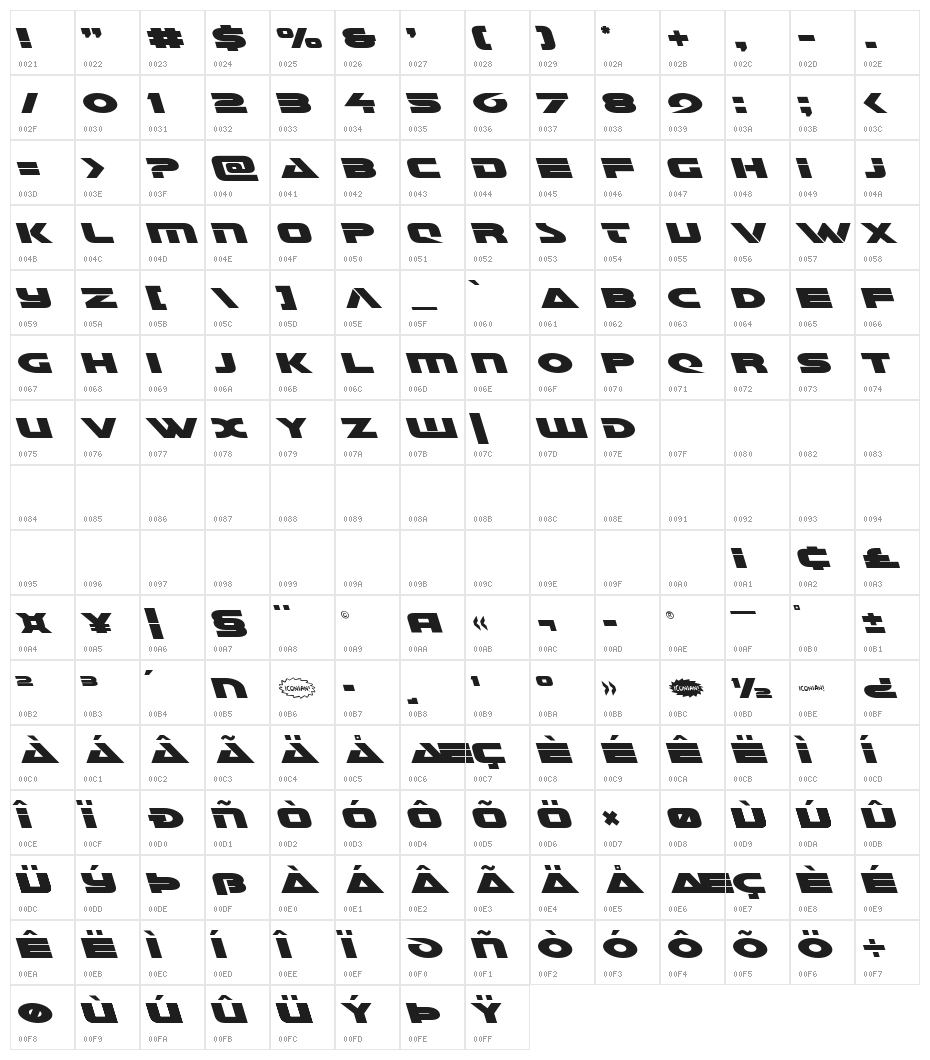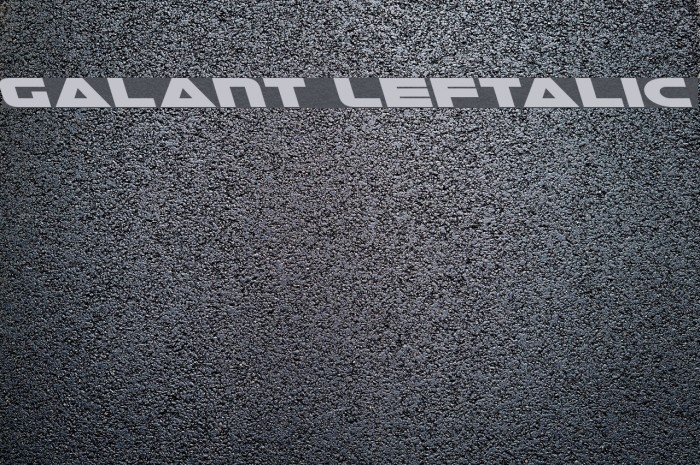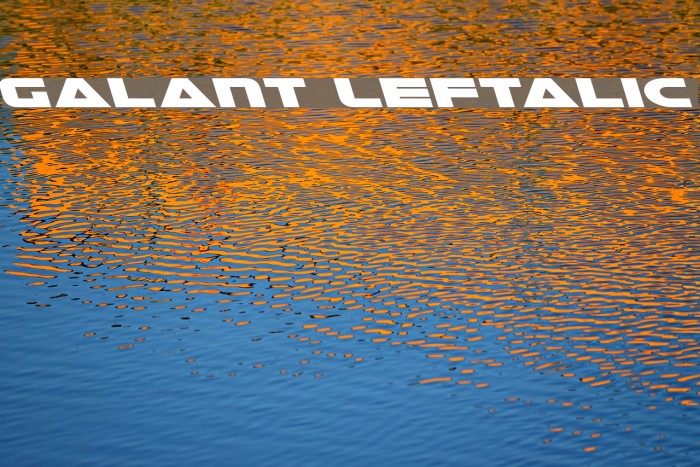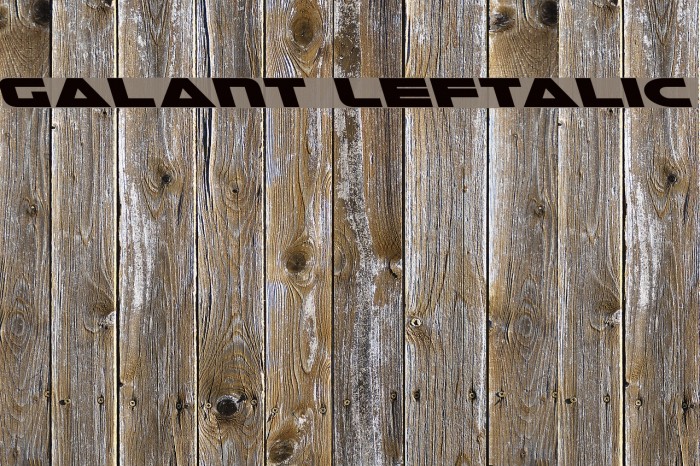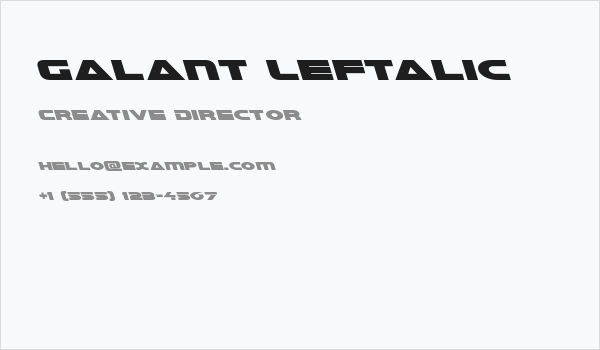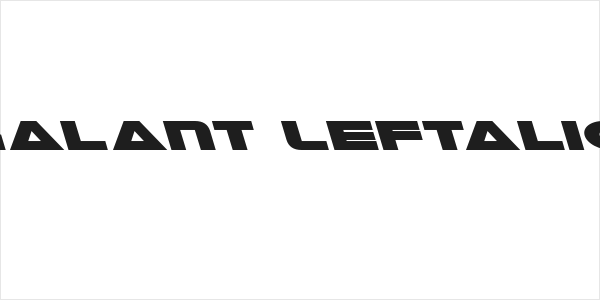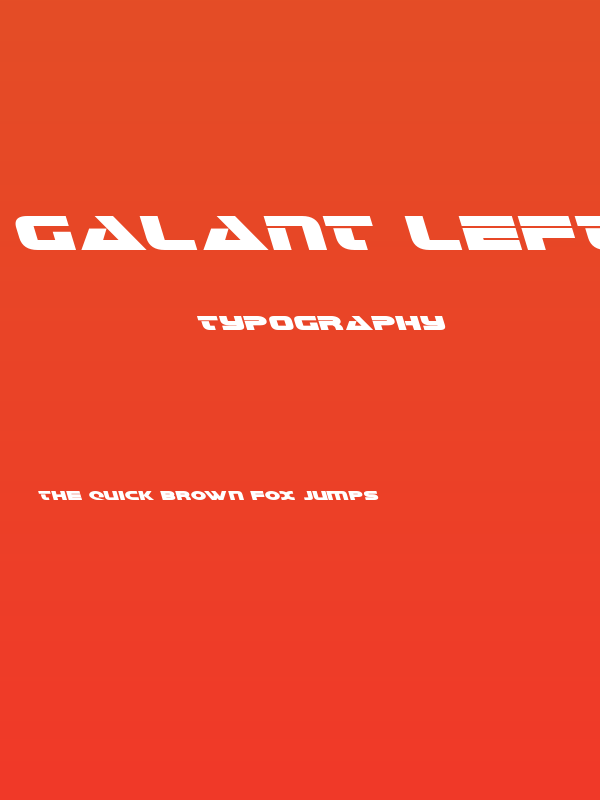
Galant Leftalic Font
Galant Leftalic Description
This font features a bold, futuristic design with a distinct slant to the left, giving it a dynamic and forward-moving appearance. The characters are wide and robust, with sharp angles and geometric shapes that create a sense of speed and modernity. The uppercase and lowercase letters maintain a consistent style, emphasizing the font's cohesive look. Numbers and special characters are designed to match the boldness and angularity of the alphabet, ensuring uniformity across all text. This font's unique style makes it ideal for projects that require a strong, impactful visual presence.